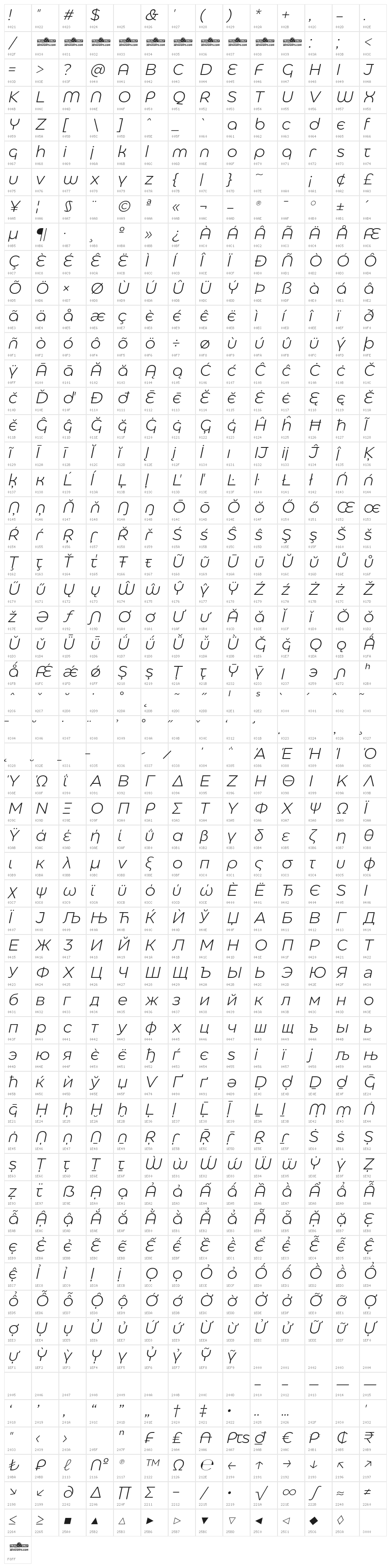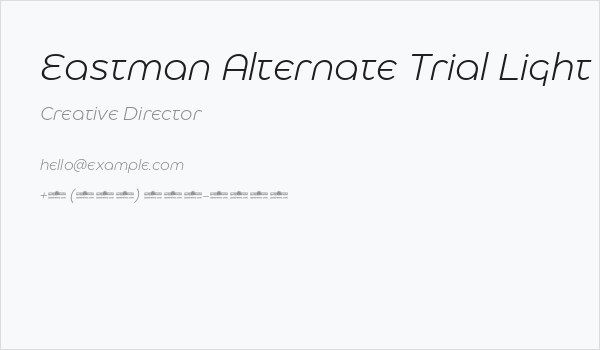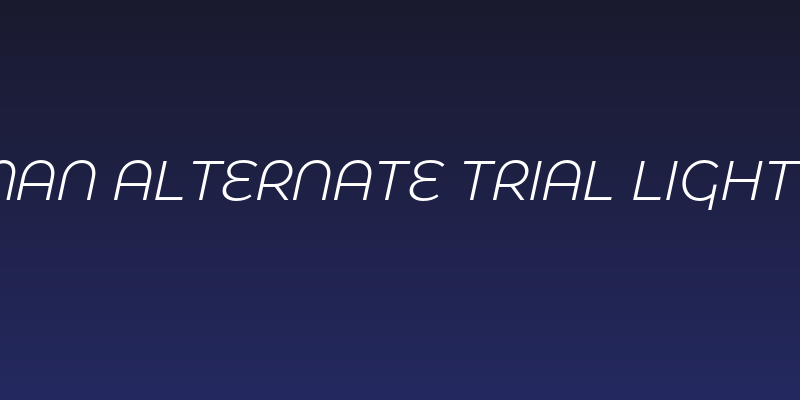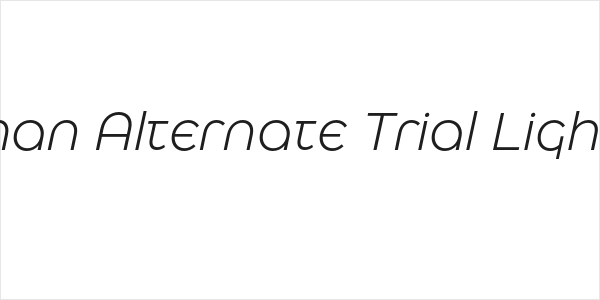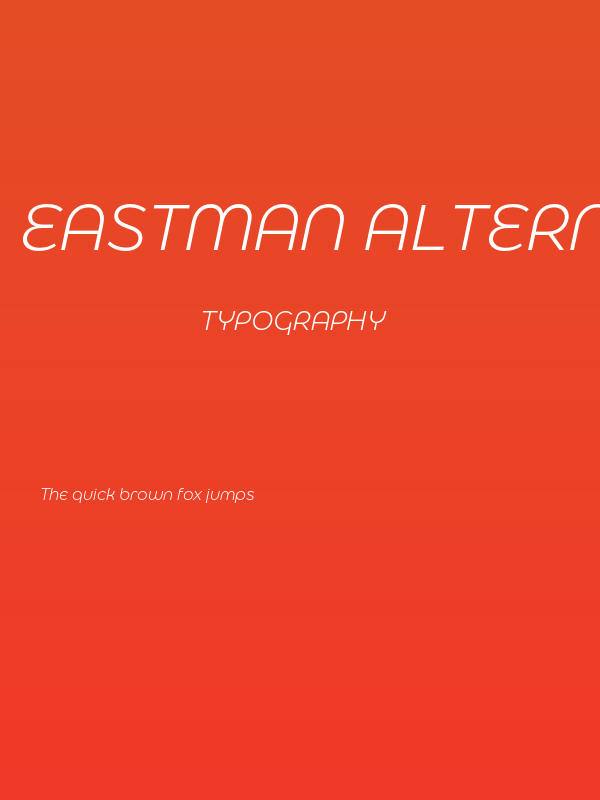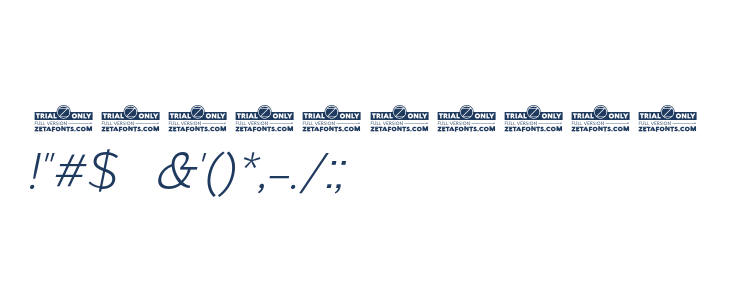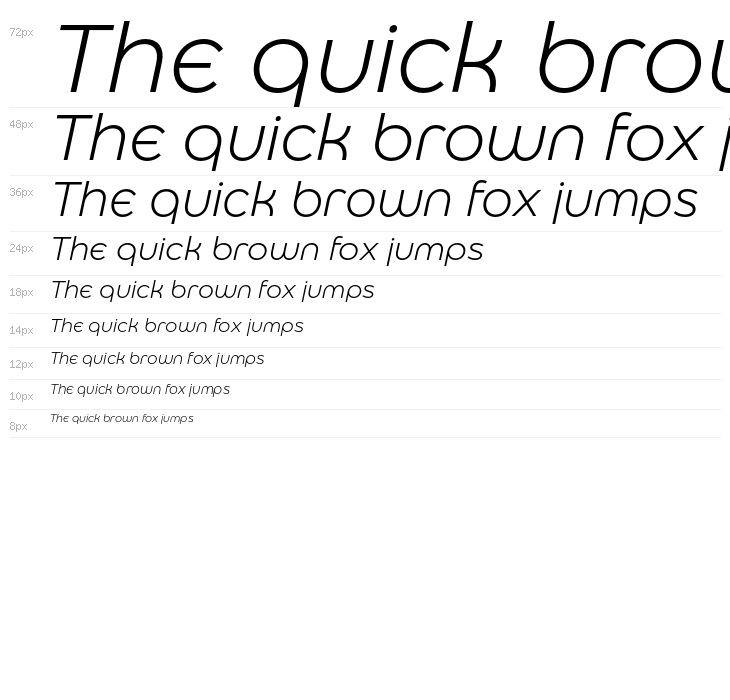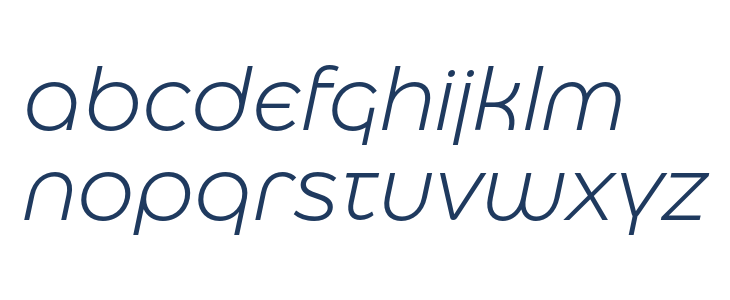
Eastman Alternate Trial Light Italic Font
Eastman Alternate Trial Light Italic Description
This font features a sleek and modern design with a light and airy feel. The characters are slightly italicized, giving a sense of motion and elegance. The strokes are consistent and smooth, with a uniform thickness that maintains readability while adding a touch of sophistication. The rounded edges of the letters contribute to a friendly and approachable appearance. This typeface is versatile, suitable for both digital and print media, and can be used to convey a contemporary and professional tone. The spacing between characters is balanced, ensuring clarity and legibility across various sizes.
| Proposed Projects | Ideal for branding, advertising, and editorial design projects that require a modern and elegant touch. |